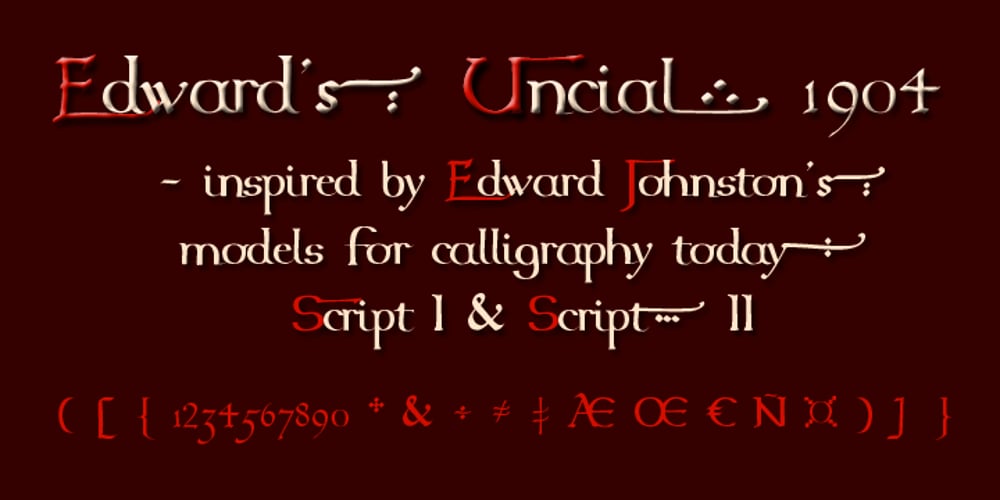
Edward’s Uncial 1904
Edward’s Uncial 1904 font
Edward’s Uncial 1904 Font Family was designed by David Kettlewell and published by New Renaissance Fonts. Edward’s Uncial 1904 contains 4 styles and family package options. It’s 100 years since Edward Johnston proposed the two mediaeval styles uncial and half-uncial to reintroduce handwriting as an enjoyable experience of beauty – calligraphy. Here his hand-written forms are adapted for print and screen, and extended for other languages; there are swash forms of beginning capitals and final small letters: and ornaments coming in a separate font soon! In the greater world of today, Edward Johnston is perhaps known mostly for his highly effective but perhaps rather unexciting font for the London Underground; but in calligraphic circles he is given the credit for having more-or-less single-handedly started the 20thC movement for Italic hand-writing, with one book, which was first published in 1906, reprinted dozens of times, and indeed is still in print today – Writing and Illuminating, and Lettering. He gives there two alphabets which he proposes should be used together as a model for a basic repertoire – an uncial and half-uncial used together as a modern upper and lower case respectively: of course, it was the renaissance alphabets which later became the basis for 20thC calligraphy, rather than these early mediaeval models, but they introduced the idea of a broad nib generating thick and thin strokes, rather than the point used for copperplate. Edward Johnston drew the proofs of the two script on different plates, and they are printed on different pages in the book, as models for handwriting: they are really too different from one another to use them together as a font just as they are. But with some adjusting, the result is rather delightful alternative to, on the one hand, historically-authentic uncials, and on the other, the ultra-smooth and regular modern interpretations which most fonts today offer. Alongside the regular font, there is a version with swash capitals to start words off with, and swash lower-cases, mostly to end short lines with, though b f k p q can work with letters after them too: to appear under Windows as a single family, this is called ‘Italic’ in the font menu. One interesting detail concerns the numbers, for which Edward Johnston suggests that – after a 0 and a 1 which are as high and low as an ‘x’, neither ascending nor descending – the even numbers might ascend while the odd numbers descend. This makes for a refreshing contrast with today’s implementation of these ‘old-style numbers’, where 2 is ‘x’-height like 0 and 1, and 4 descends with its neighbours 3 and 5, rather than ascends like the other even numbers 6 and 8. Edward Johnston gave a model of a decorated capital O with a patterned background: here the two elements are separated, so you can use the background with various colours and with any of the capitals. Or indeed capitals from other fonts.